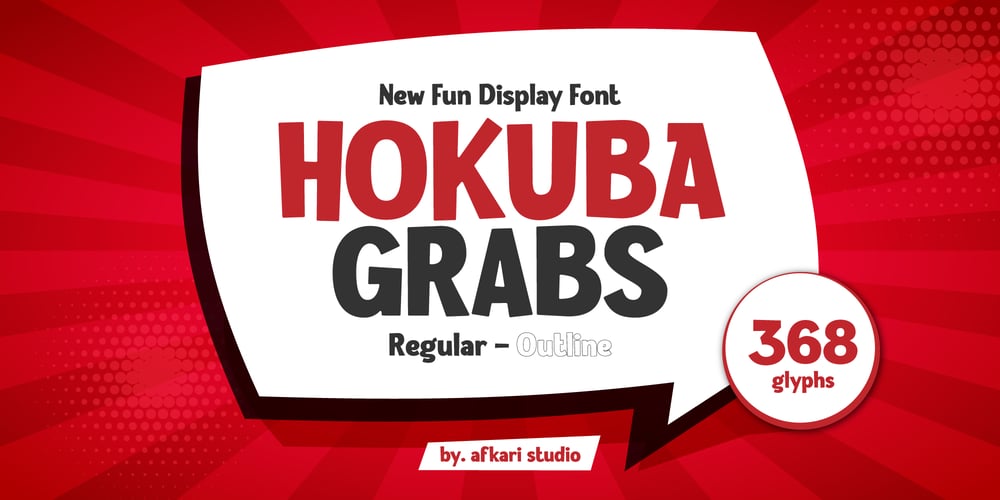
Hokuba Grabs Font Family was designed by Musthafa Kamal Emje and published by Afkari Studio. Hokuba Grabs contains 2 styles and family package options. Hokuba Grabs – New Fun Display FontHokuba Grabs is a New display font that creates with a very good concept and adjusted well to keep the legibility. Hokuba Grabs Display Font Comes with upper and lowercase Standard Characters, Punctuation, Numerals, And other Glyphs variation of the OpenType features/ Ligatures.Hokuba Grabs Display Font is suitable for logos, posters, school flyers, university banners, modern advertising design, product labels, cartoons, comics, kid books, custom mugs, pillows, t-shirts, youtube thumbnails/covers, subtitles, poster quotes, editorial design, book/cover Title, website/blog, social media post, packaging designs, and other designs.Features;- 2 Styles; Regular and Outline- Special Alternates- Uppercase, Lowercase, Number, and Punctuation- Works on PC & Mac- Simple installations- Accessible in Adobe Illustrator, Adobe Photoshop, Adobe InDesign, even work on Microsoft Word- Fully accessible without additional design software.- Mültîlíñgúãl Sùppört for; ä ö ü Ä Ö Ü ß ¿ ¡Hope you enjoy our font and this font is useful font for your projects!